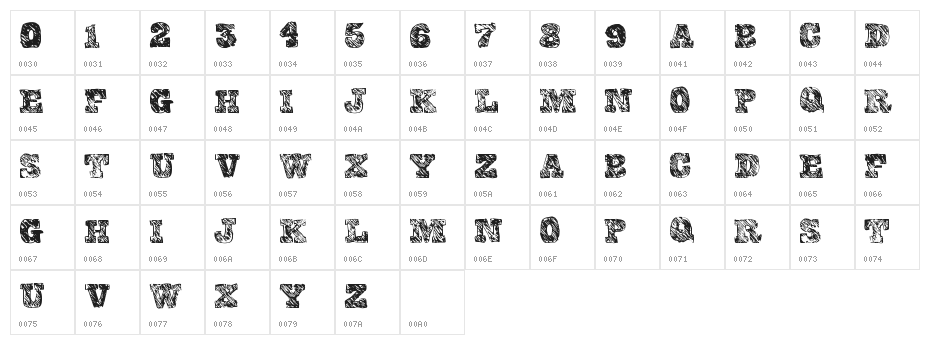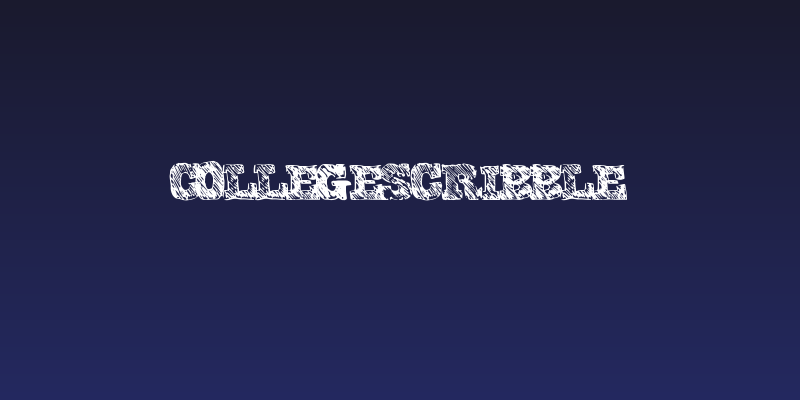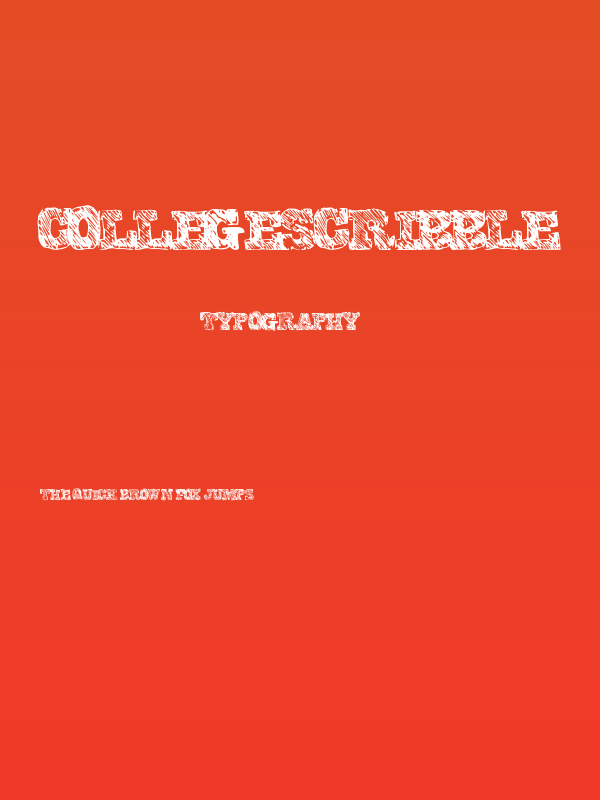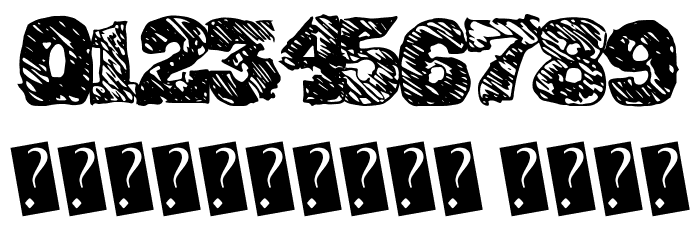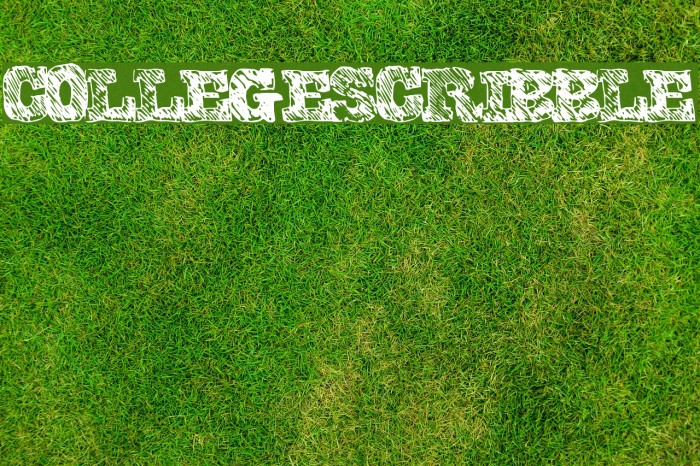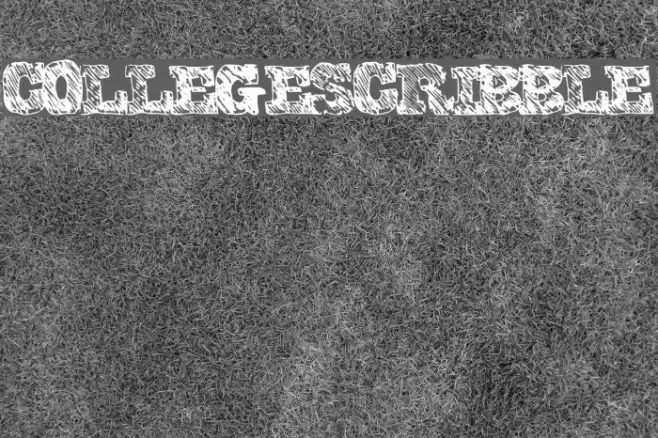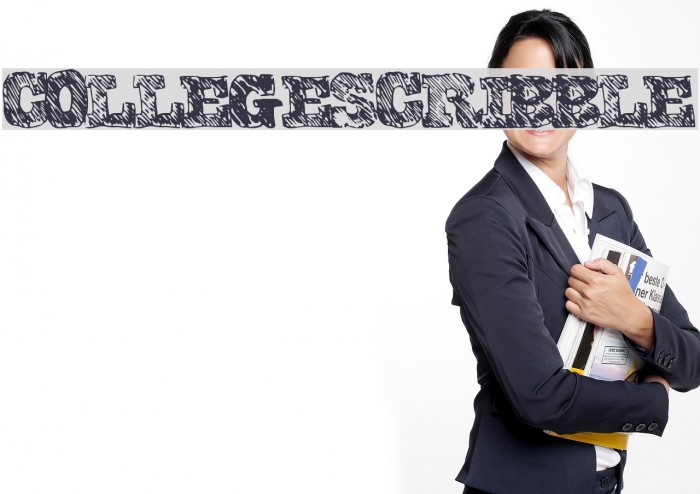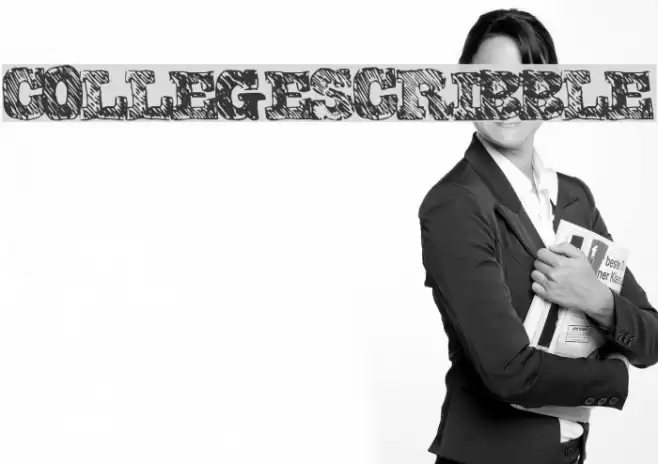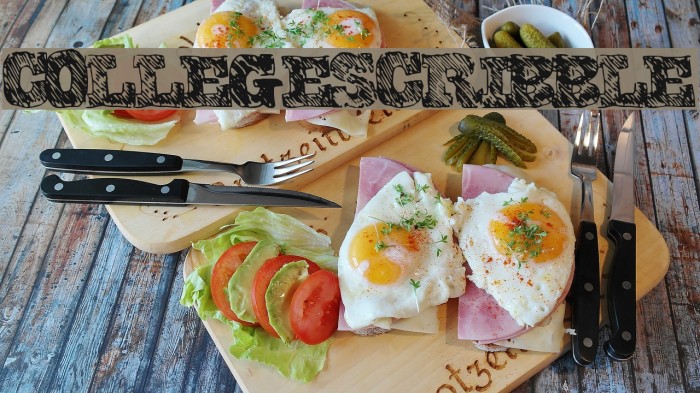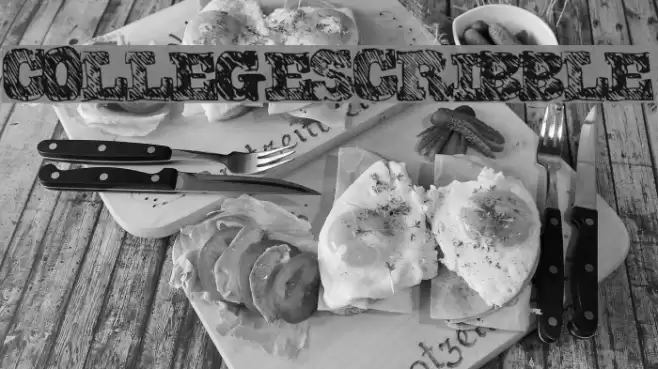
CollegeScribble Font
CollegeScribble Description
This font features a playful, hand-drawn style with a scribbled texture that gives it a casual and artistic appearance. The letters are bold and have a rough, sketch-like quality, reminiscent of chalkboard writing or doodles. Each character is filled with irregular, overlapping lines that create a sense of movement and energy. The font maintains a consistent weight throughout, ensuring readability despite its decorative nature. It is ideal for projects that require a fun and informal touch, such as children's book covers, party invitations, or creative posters.
| Overall Style | Playful, Artistic |
| Proposed Projects | Children's book covers, party invitations, creative posters, educational materials. |